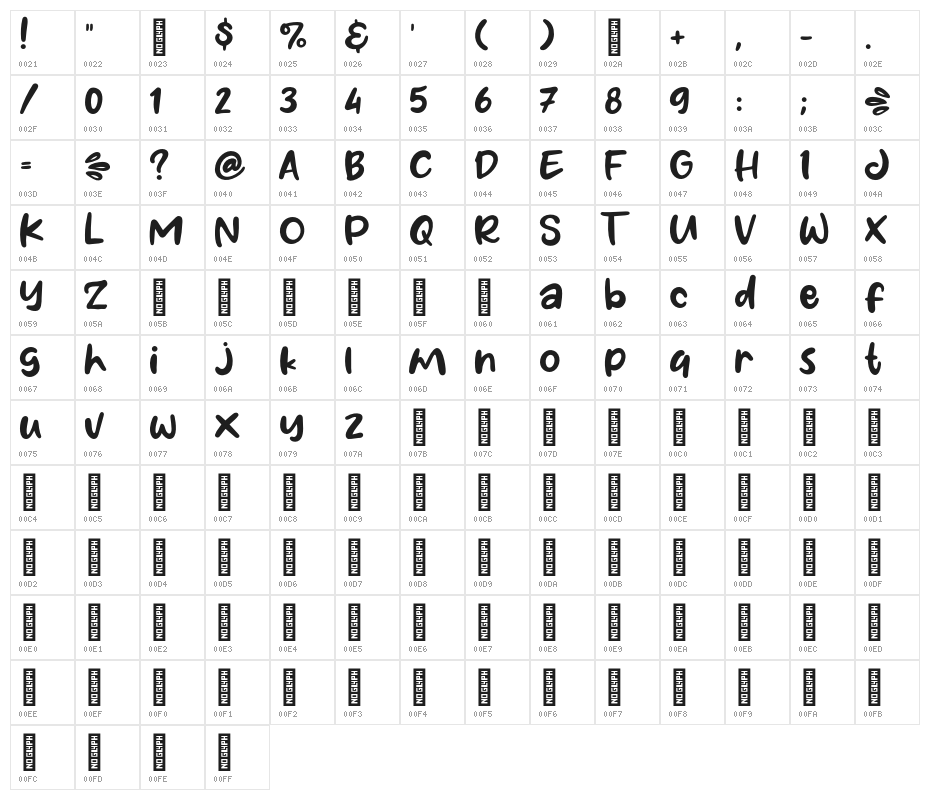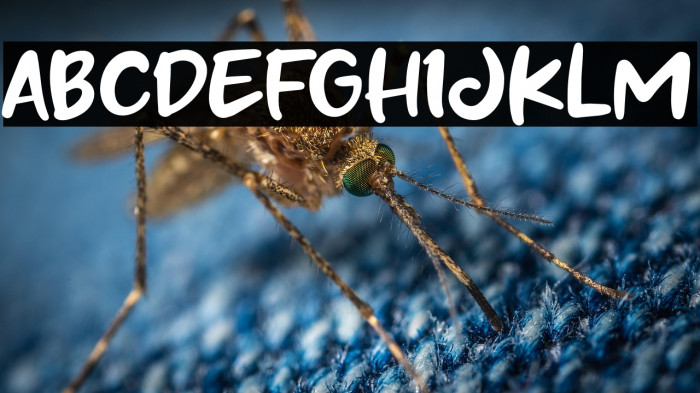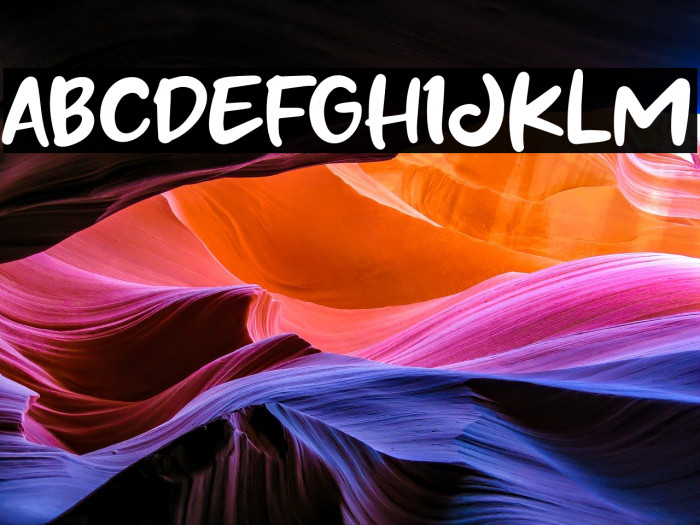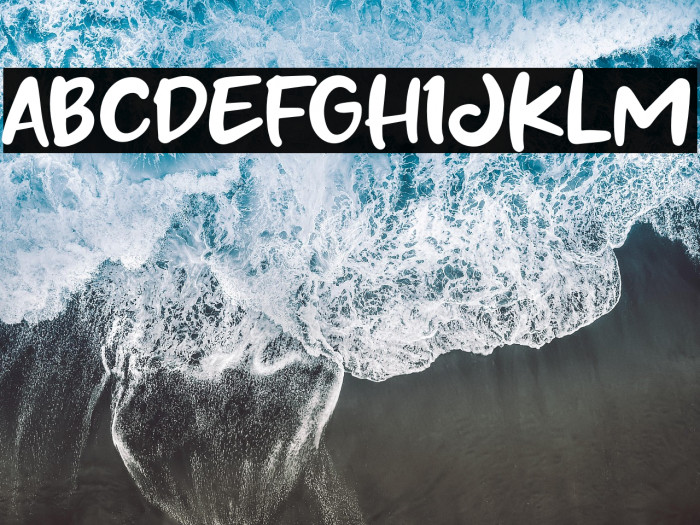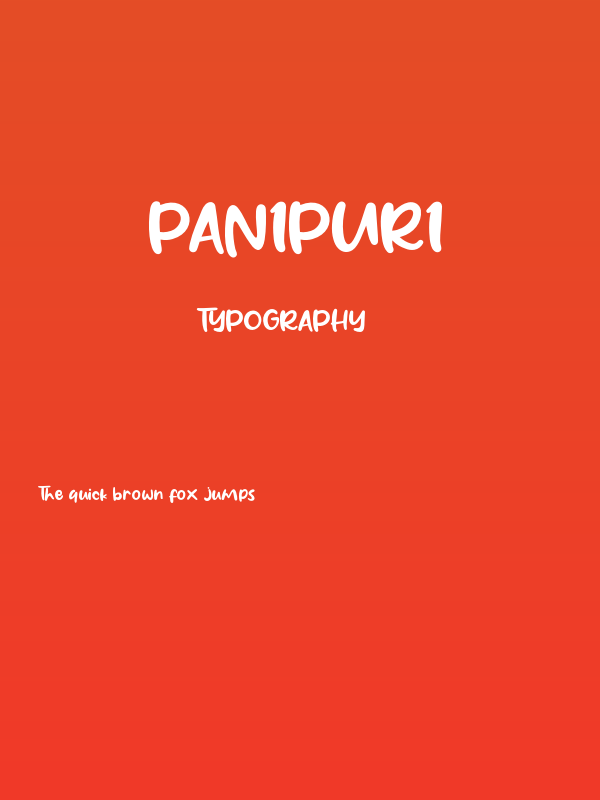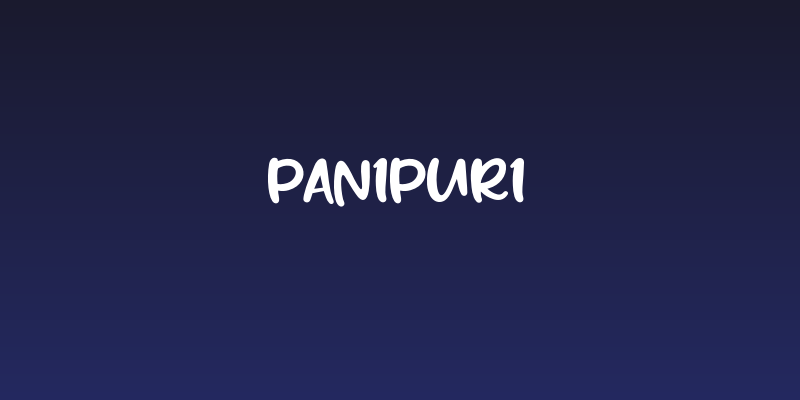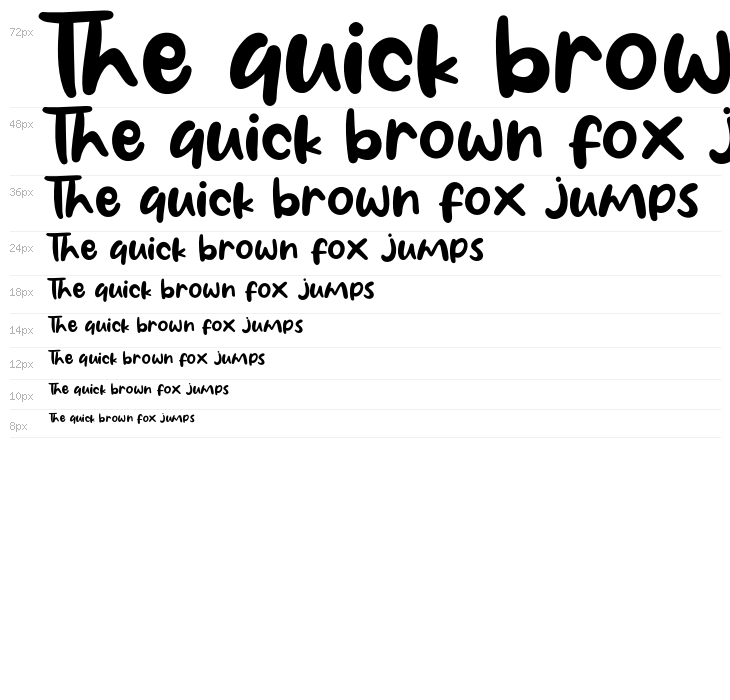
Panipuri Font
Panipuri Description
This playful and energetic font features a handwritten style with bold, rounded characters. The letters are slightly irregular, giving it a casual and friendly appearance. The strokes are thick and consistent, providing a strong presence on the page. The font includes both uppercase and lowercase letters, numbers, and a variety of special characters. Its informal style makes it suitable for projects that require a personal touch or a sense of fun and creativity.
| Proposed Projects | Ideal for children's books, greeting cards, playful branding, and casual invitations. |